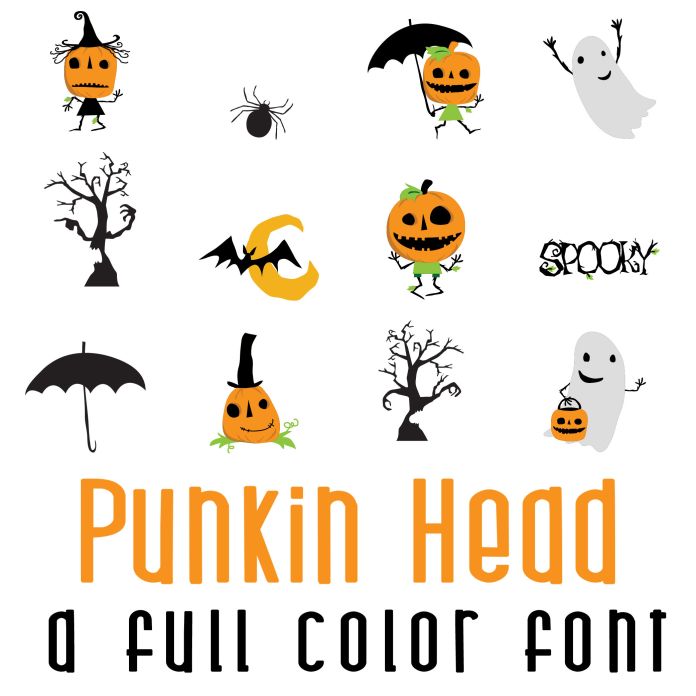
This fun full color font features 26 jack-o-lanterns and halloweenies perfect for cards, crafts, gifts, parties, planner stickers, classrooms, scrap book pages and more!